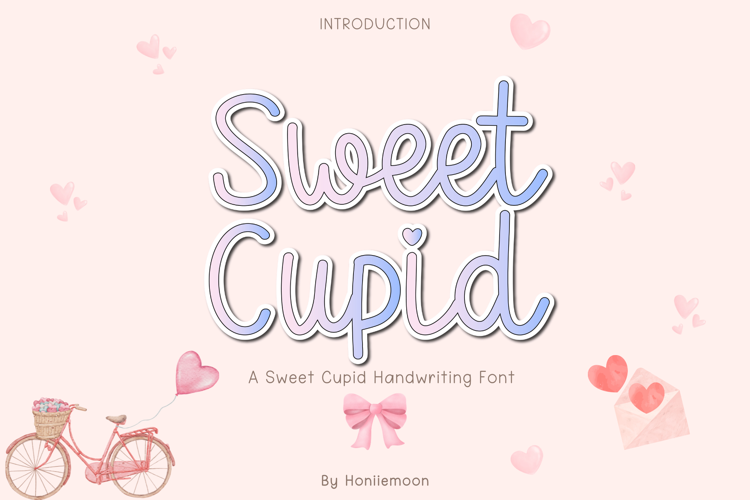
Sweet Cupid is a cute and charming handwriting font designed to bring warmth, love, and sweetness to your designs.
With its soft strokes and playful handwritten style, this font is perfect for Valentine’s Day projects and everyday cute creations.
Sweet Cupid works beautifully for greeting cards, love notes, planners, journals, stickers, t-shirts, mugs, invitations, social media graphics, and craft designs.
It’s easy to read, friendly, and versatile—great for both digital and print use.